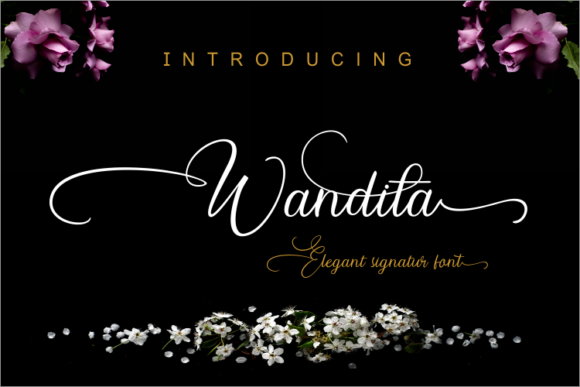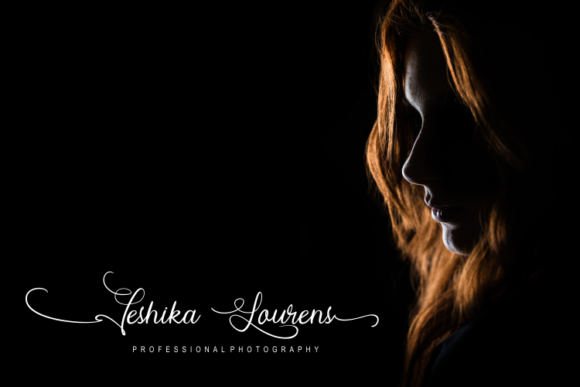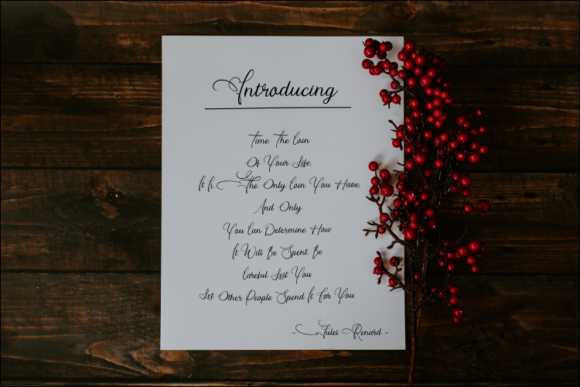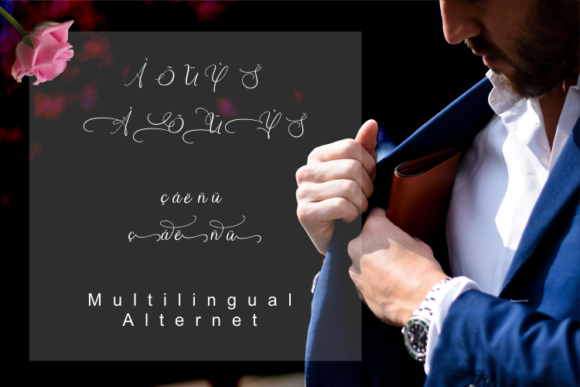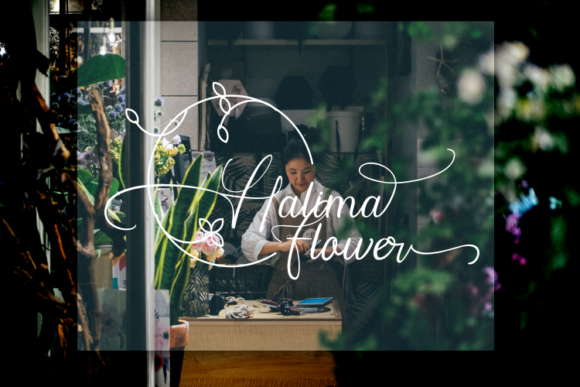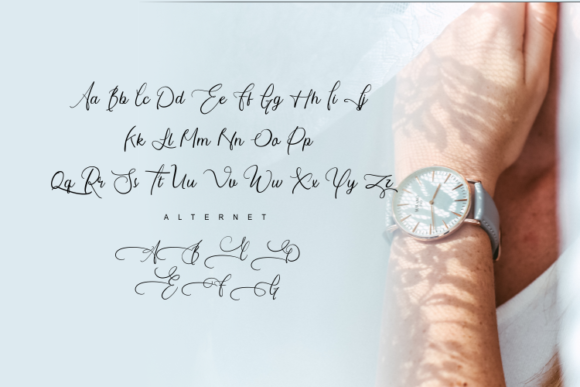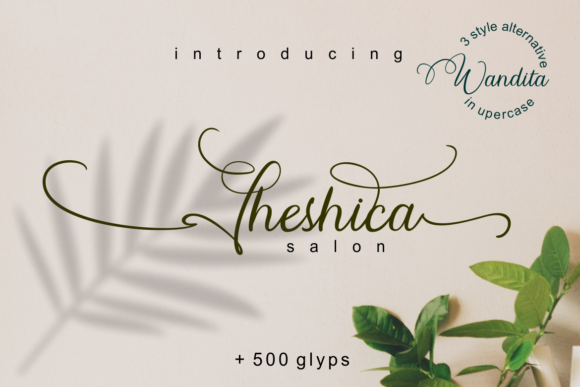
Wandita Font
About Wandita Font
Wandita is a cute and elegant Handwritten font that has a unique style. It is perfect for logos, wedding invitations. magazines, album covers, and much more.
Give your next project a stylish look with this beautiful font.